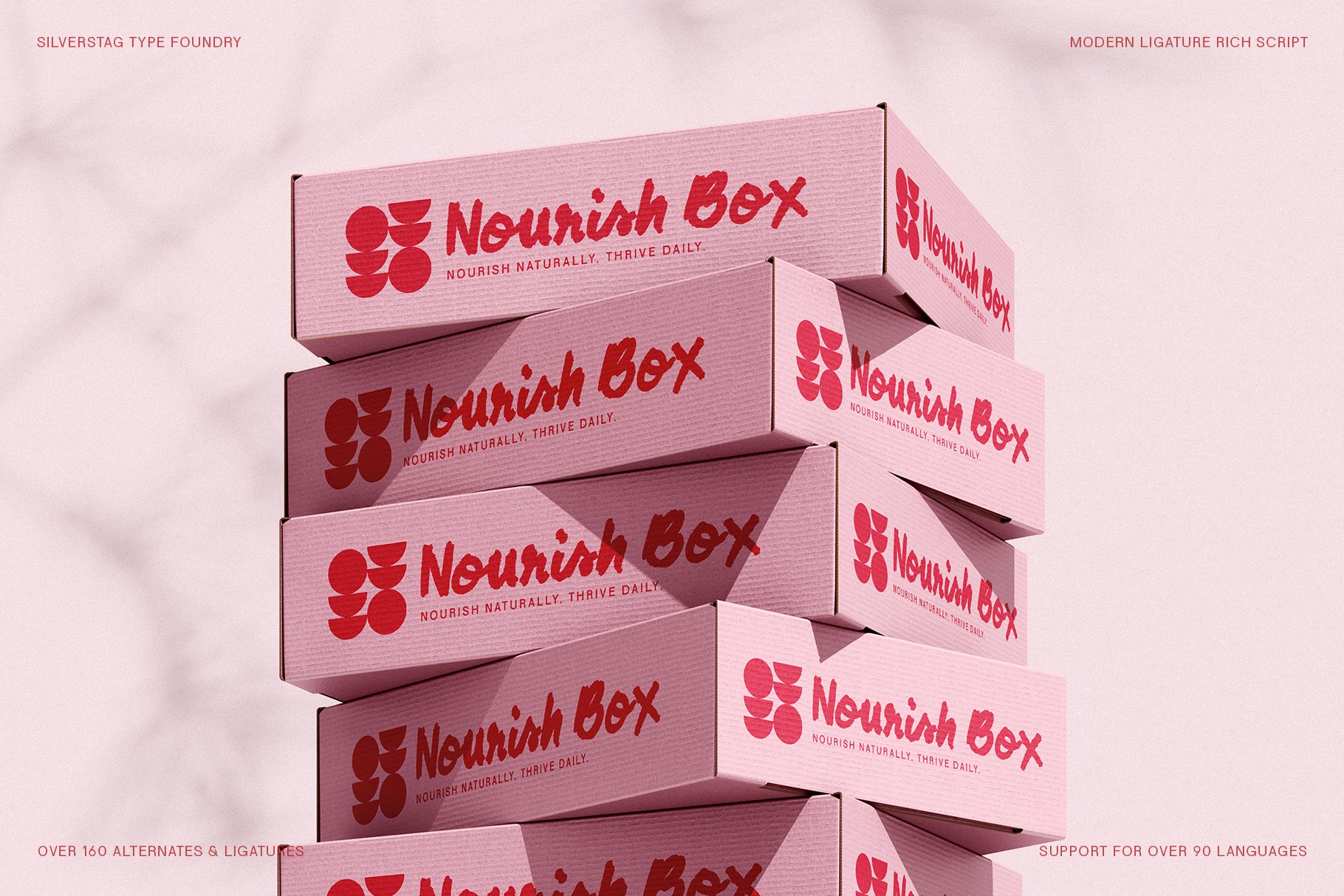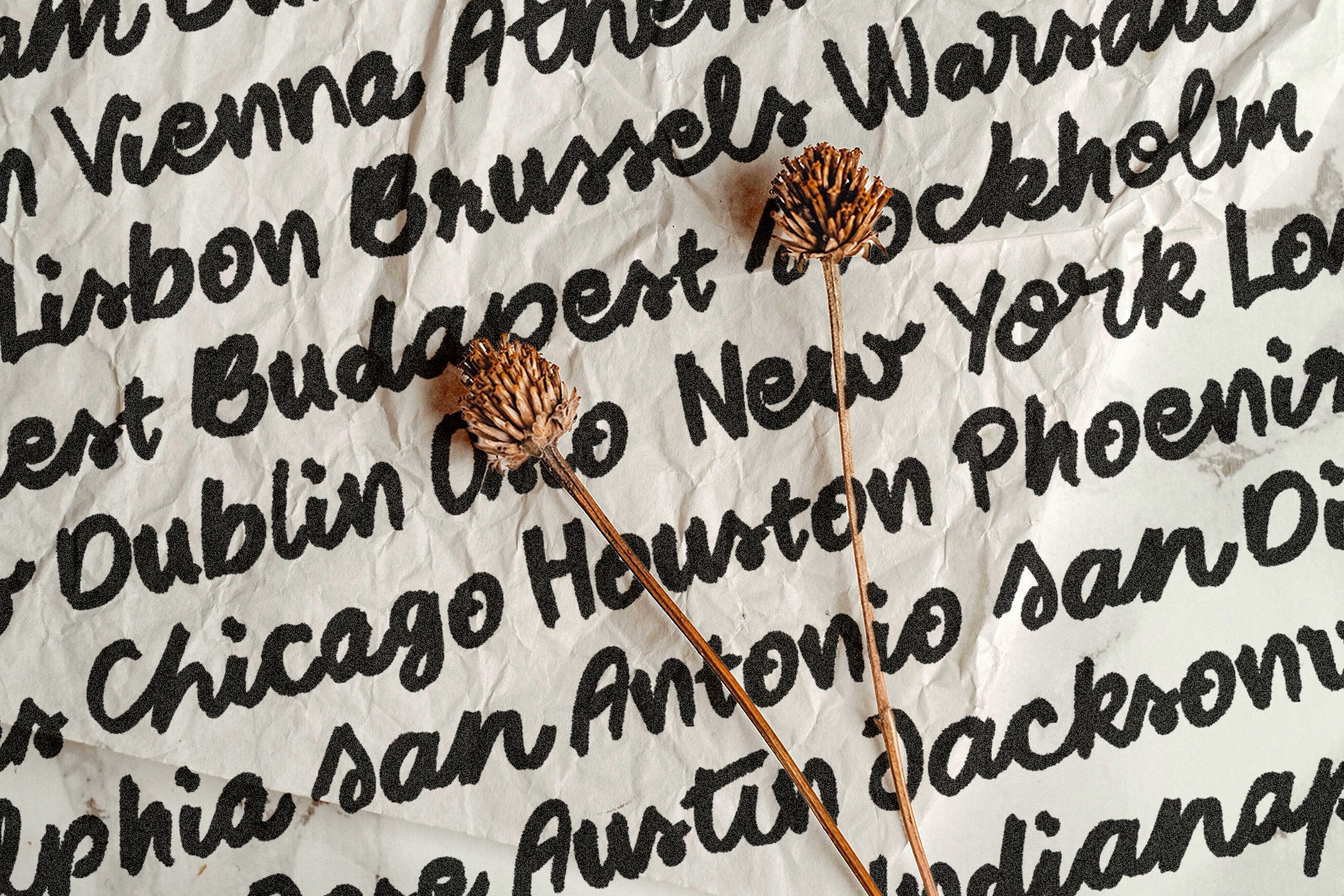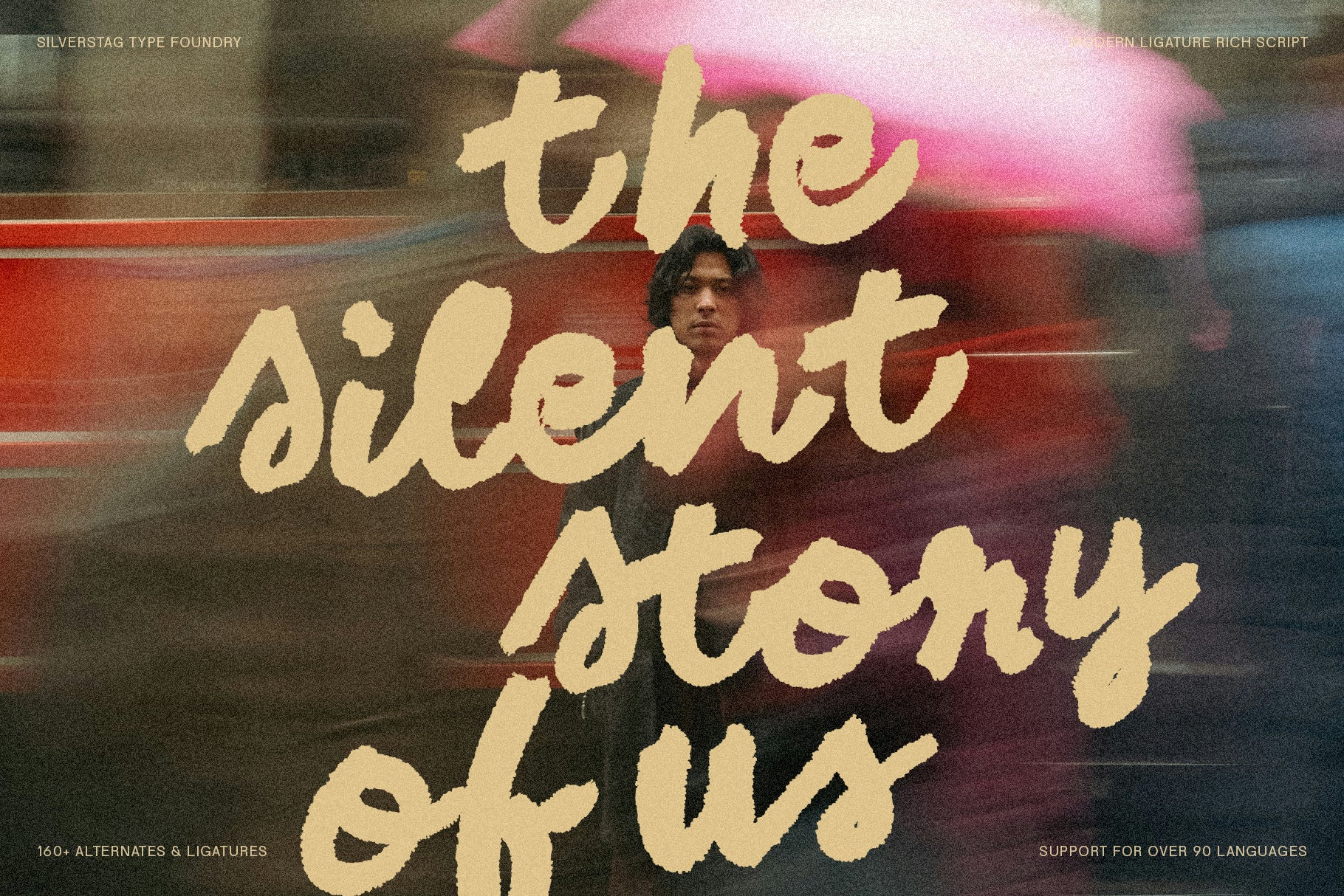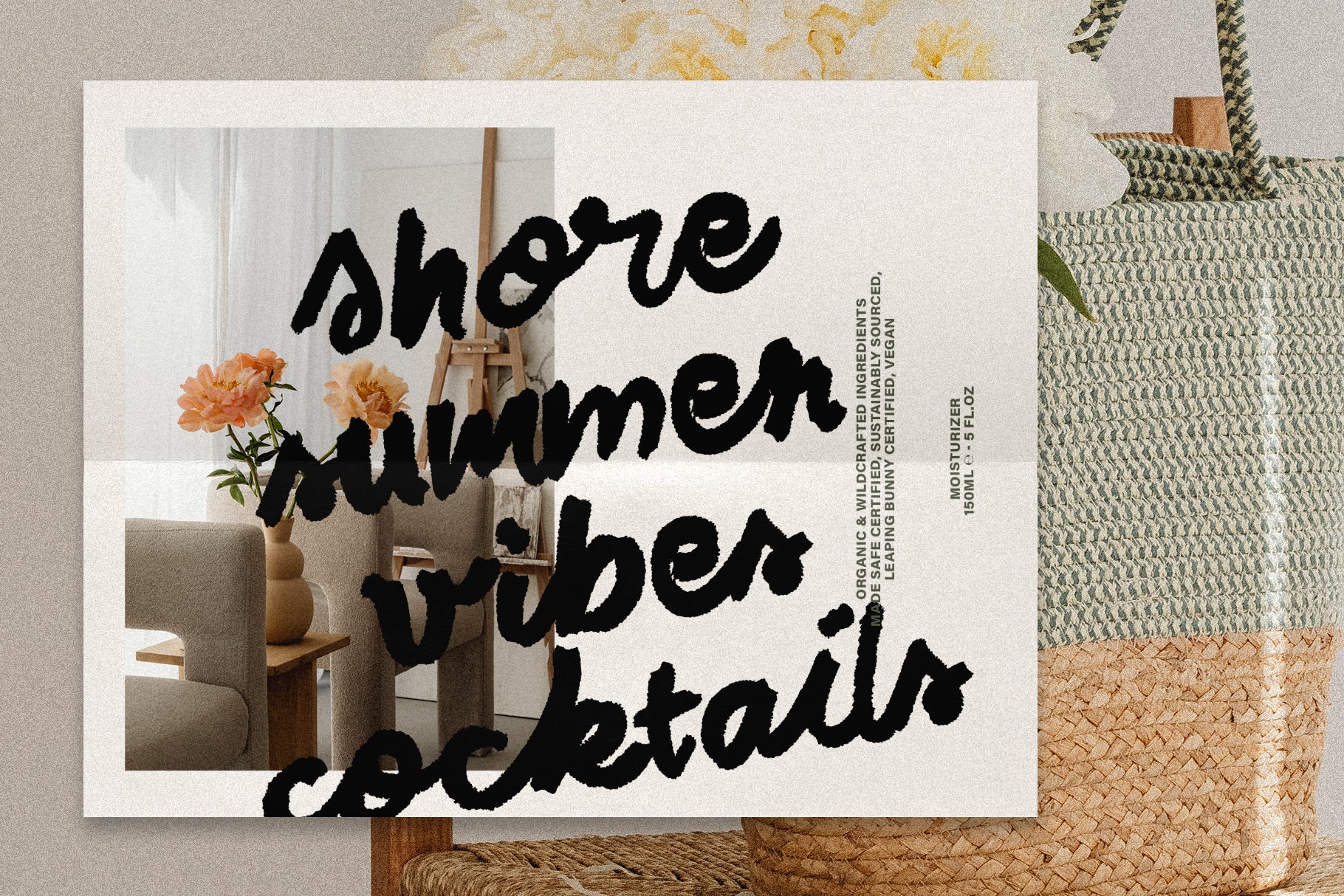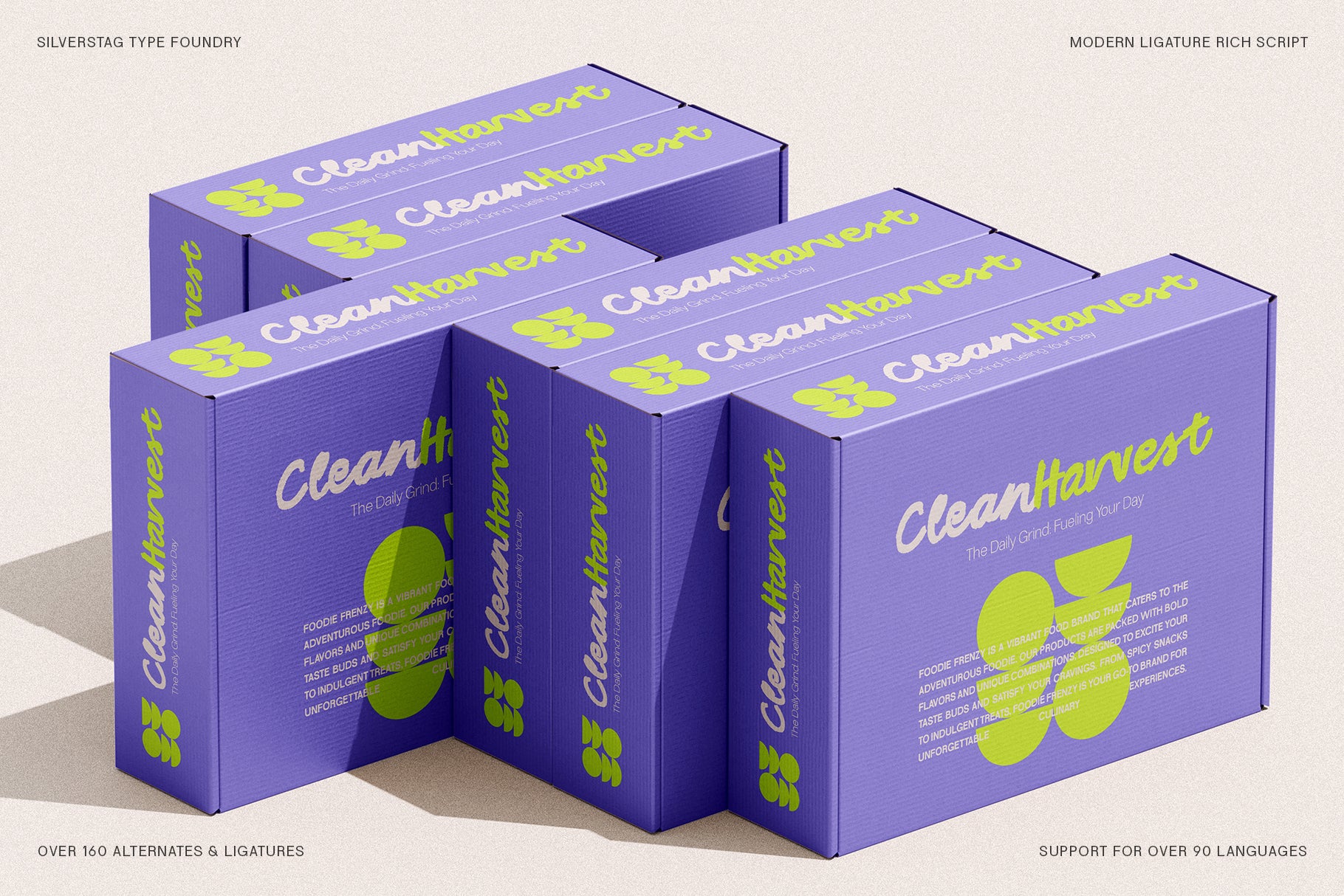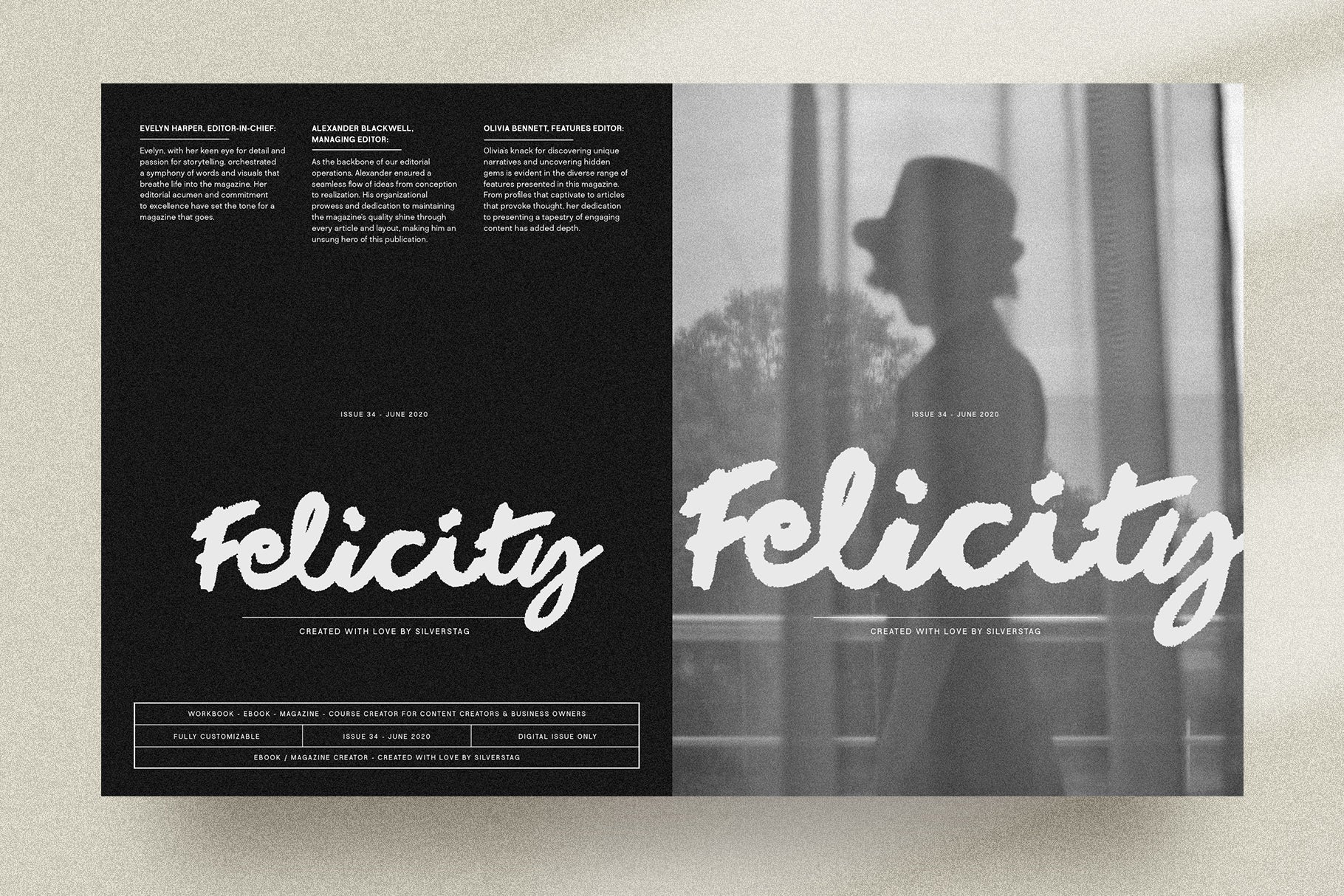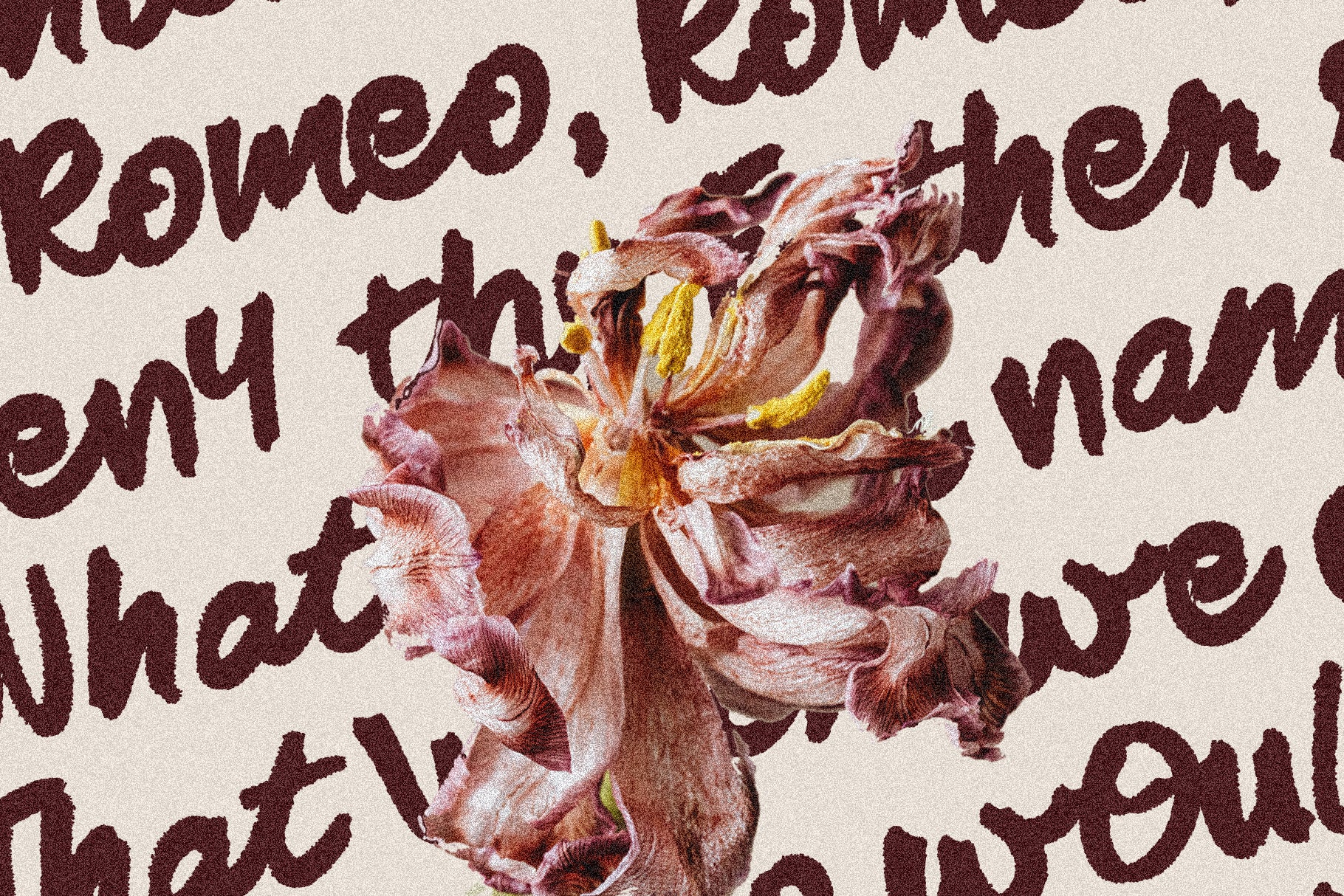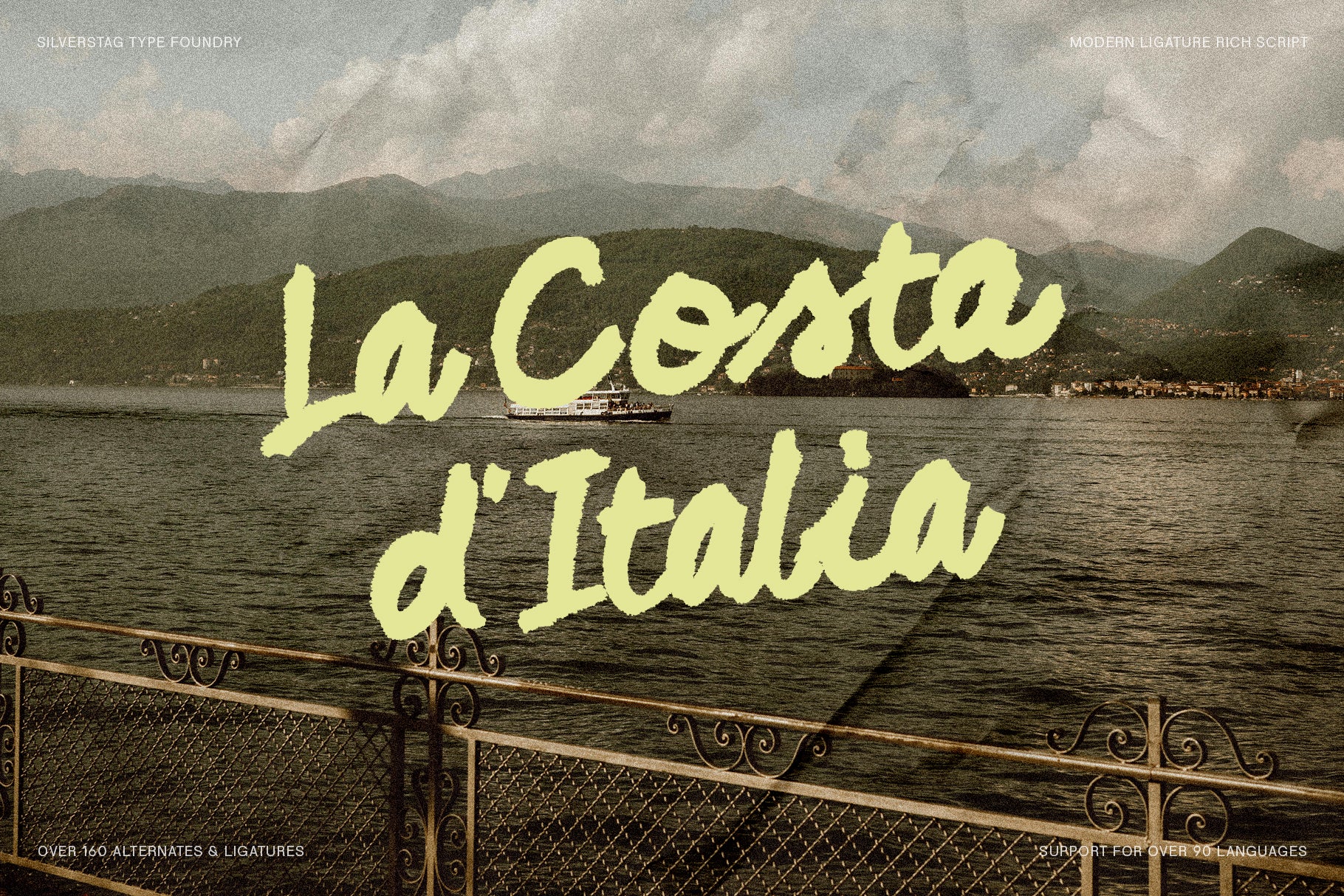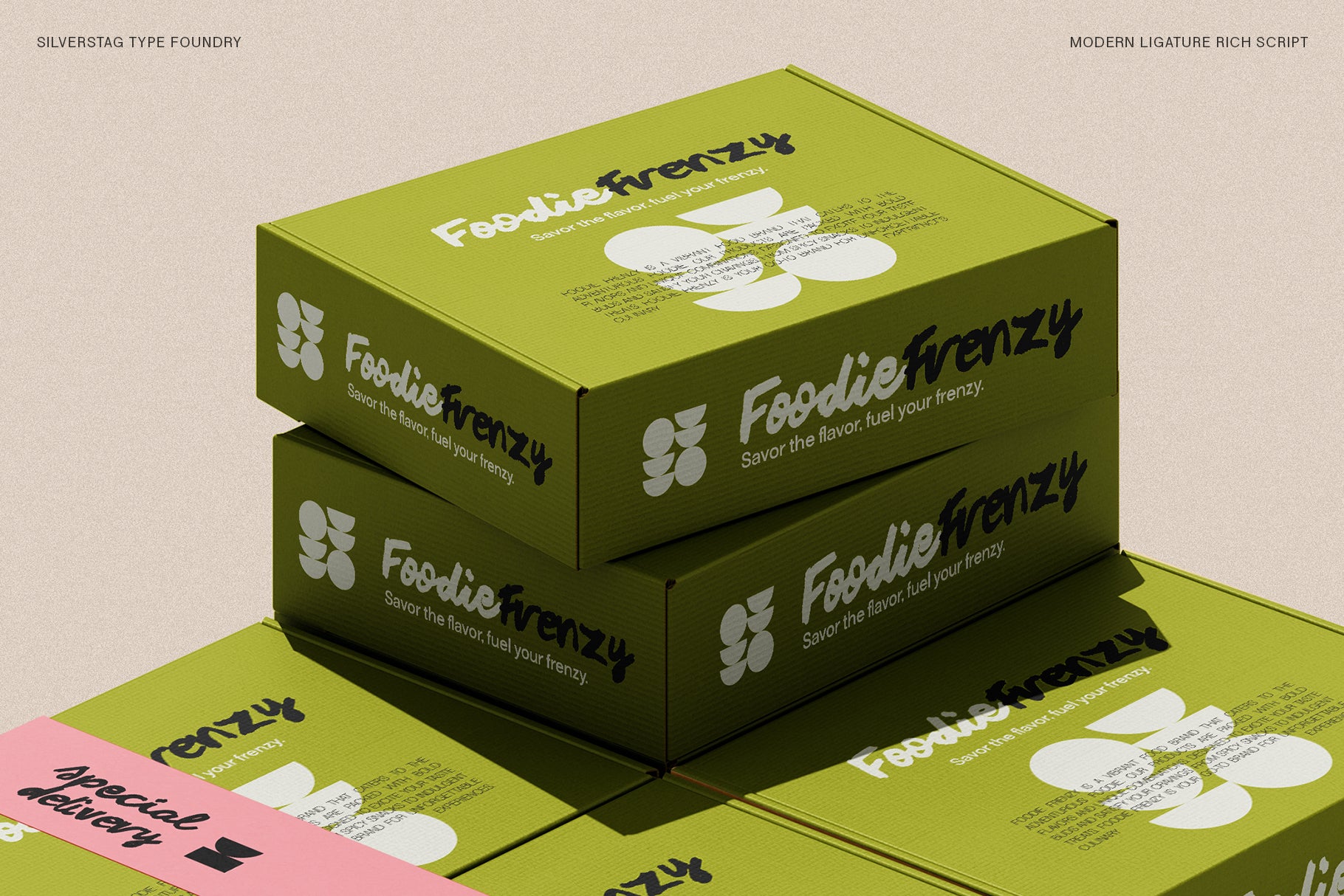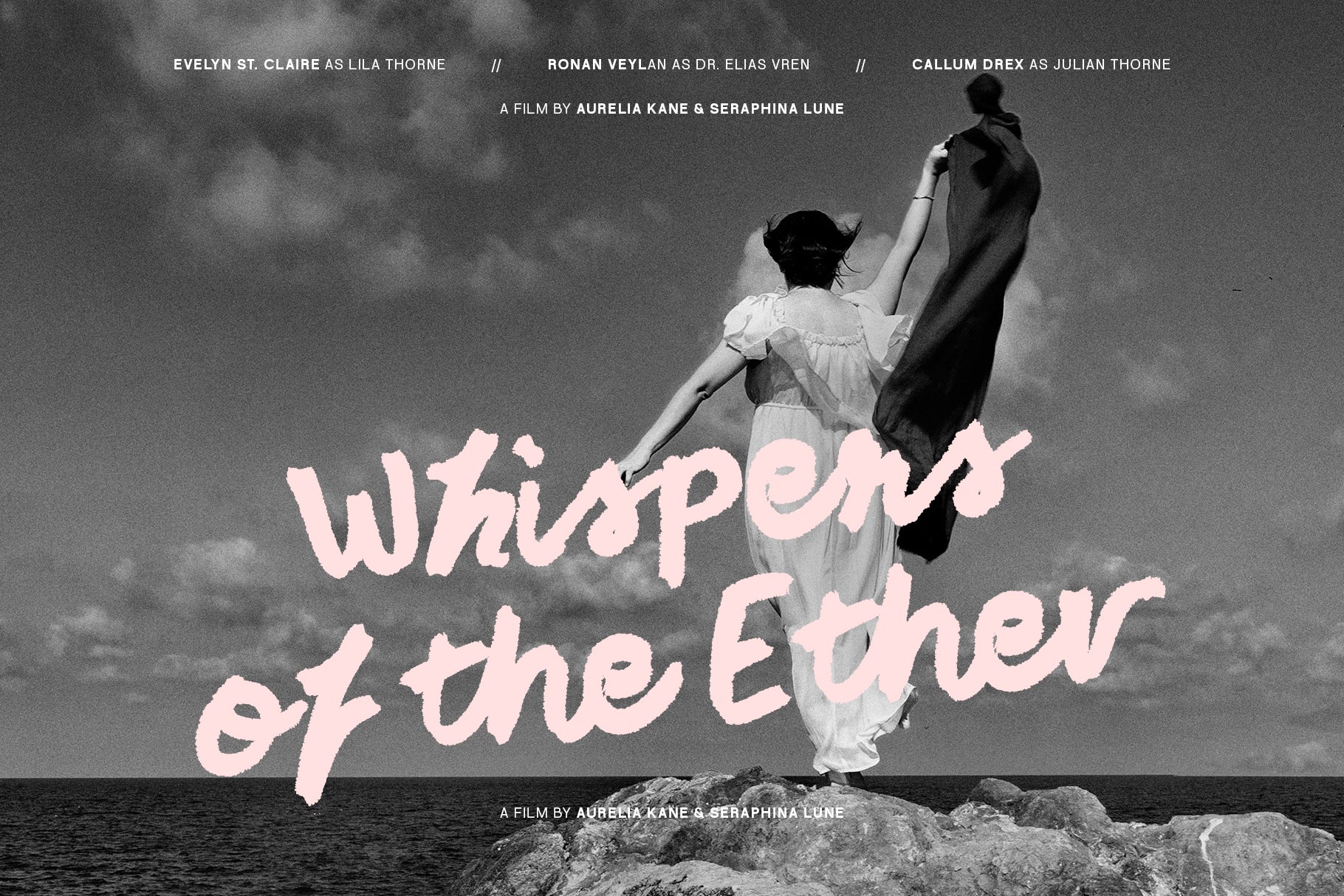
SLTF Midnight Chianti - Bold Handwritten Font
SLTF Midnight Chianti is a bold, handcrafted handwritten typeface made for expressive design. With a naturally flowing style and a vibrant personality, it brings an authentic, artistic flair to branding, packaging, posters, and social media graphics.
Featuring three full sets of uppercase and lowercase letters and 50+ ligatures, Midnight Chianti lets you create dynamic, custom typography that feels organic and human. Each character has been meticulously drawn to ensure originality and give your designs a fresh, personal touch.
Designed for modern creatives and global use, this font supports 90+ languages, making it ideal for international campaigns and multicultural branding. Whether you’re designing an artisanal product label or crafting a bold social post, Midnight Chianti adapts beautifully to any medium.